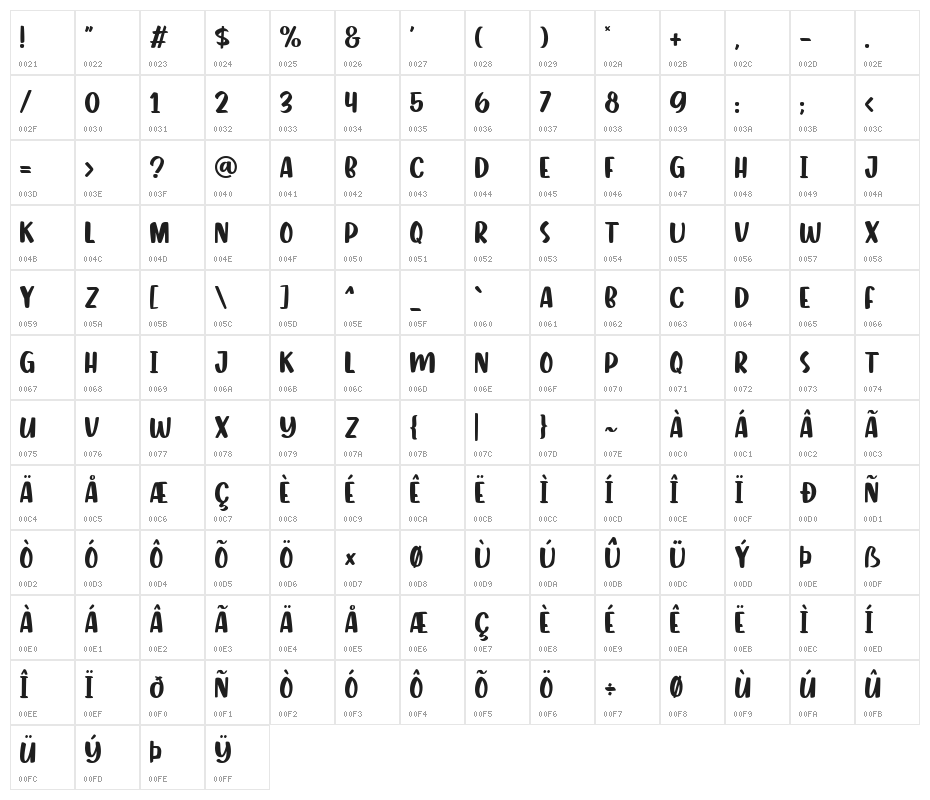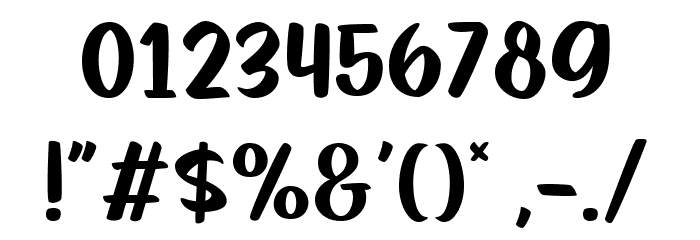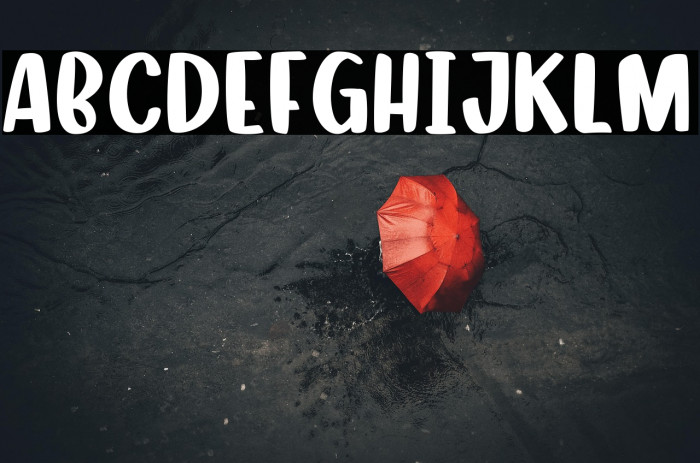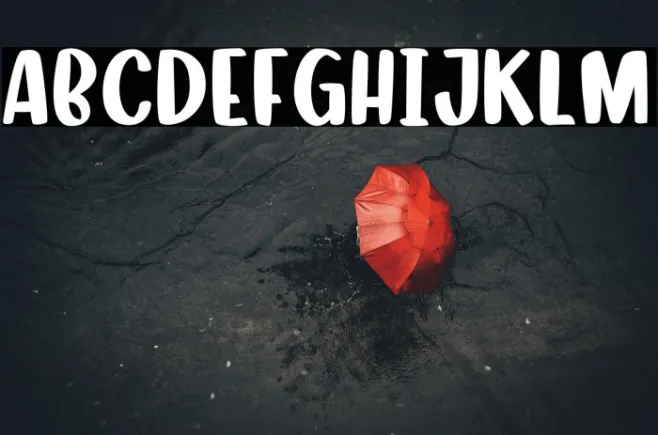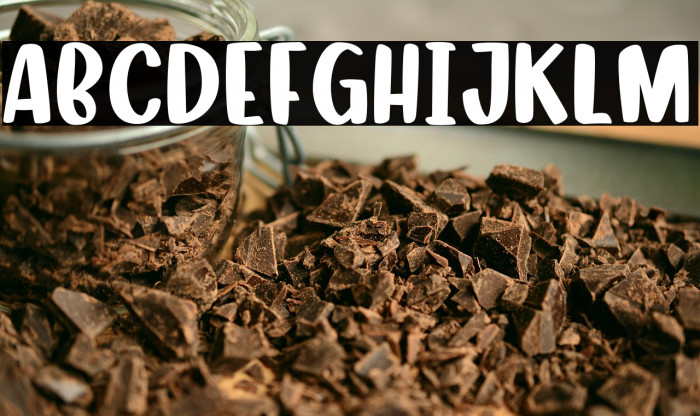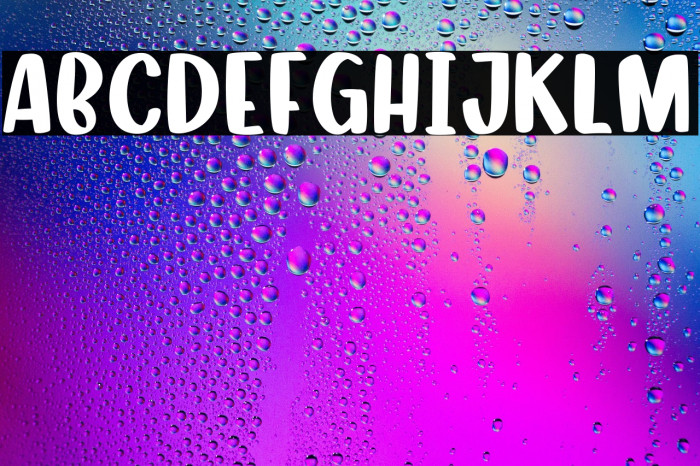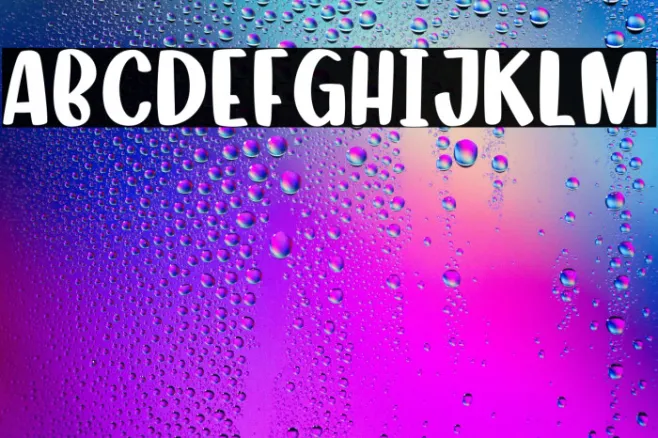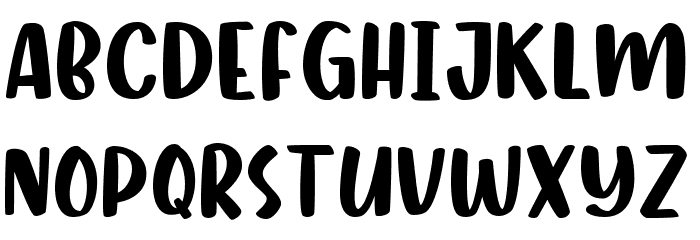
Tortello Font
Tortello Description
This font features a playful and bold style, characterized by its rounded and slightly irregular letterforms. The strokes are thick and consistent, giving it a strong presence. The letters have a hand-drawn quality, with subtle variations that add a touch of whimsy. The overall appearance is friendly and approachable, making it suitable for creative and informal applications. The numbers and special characters maintain the same playful aesthetic, ensuring consistency across all elements.
| Overall Style | Playful, Hand-drawn |
| Use Case | Logos, Posters, Creative projects |
| Proposed Projects | Ideal for children's books, playful branding, greeting cards, and creative posters. |